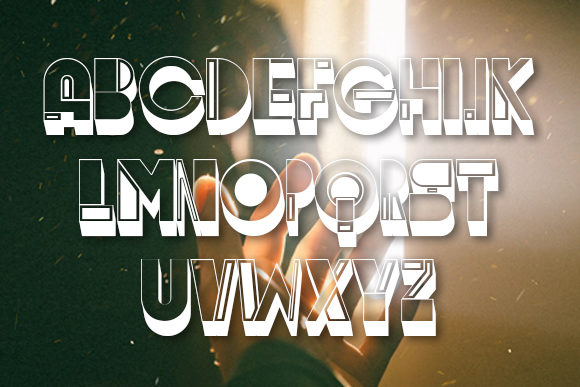
Unlock Your Creative Potential with the Bright Light Font
Have you ever found yourself stuck in a creative rut, staring at a blank page or screen, waiting for inspiration to strike? You’re not alone. Sometimes all it takes is a spark of creativity to set your imagination ablaze, and that’s exactly what the Bright Light Font is designed to do.
As a uniquely designed display font, Bright Light Font is perfect for adding a touch of elegance and sophistication to your designs. Whether you’re working on a branding project, a marketing campaign, or simply a fun personal project, this font is sure to elevate your work and make it stand out from the crowd.
For designers, the Bright Light Font is a valuable tool that offers endless possibilities for creative expression. With its beautiful variations and customizable options, you’ll have a blast experimenting with different styles and layouts to create truly unique and eye-catching designs.
Bright Light Font Key Features
- Unique Characteristics: Bright Light Font features a unique blend of modern and vintage elements, with clean lines, geometric shapes, and a touch of elegance.
- Kerning and Ligatures: The font includes advanced kerning and ligature pairs, ensuring that text sets are visually appealing and easy to read.
Bright Light Font Review
I recently had the chance to work with the Bright Light Font, and I must say it’s a unique and attention-grabbing choice. ✨ Here are some of its strengths:
- The font’s bold and modern design makes it perfect for headlines and titles.
- The high contrast between the light and dark elements creates a visually appealing effect.
- The font is highly legible, even at smaller sizes, making it suitable for body text as well.
- The font may be too flashy for more conservative or traditional designs.
- The high contrast may cause eye strain in certain lighting conditions.
- The font’s boldness may not be suitable for paragraphs with a lot of text.
Overall, I think the Bright Light Font is a great choice for designs that need a bold and eye-catching element. It’s perfect for modern and trendy projects, but may not be the best fit for more classic or professional designs. With careful use, it can add a lot of visual interest to a project, but be mindful of its limitations to avoid overwhelming the viewer.
Tips for Getting the Most Out of Bright Light Font
To get the most out of Bright Light Font, use it for:
- Titles and headings to grab attention.
- Emphasizing important information.
- Creating a modern and sleek design aesthetic.
Bright Light Font is commonly used in:
- Marketing materials, such as brochures and flyers.
- Presentations and reports.
- Web design and development.